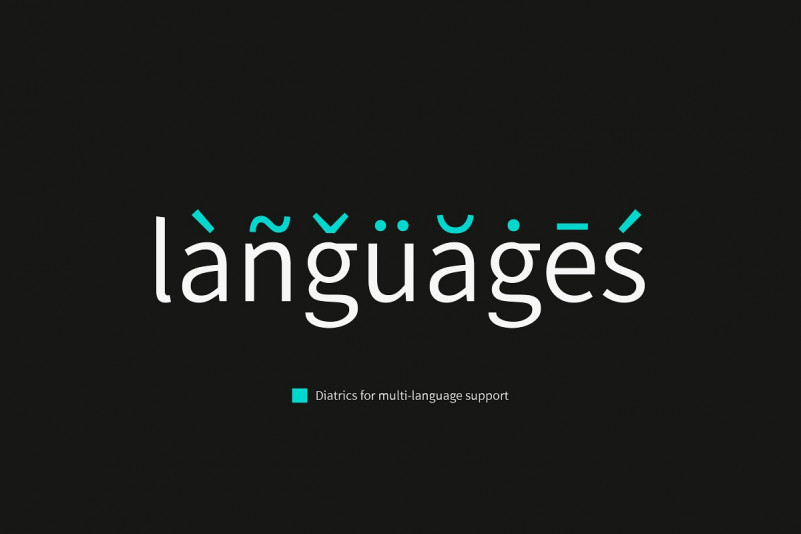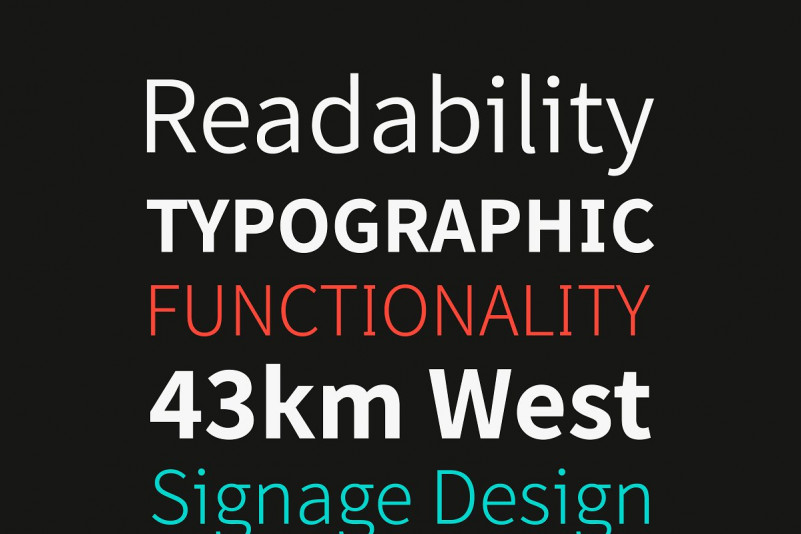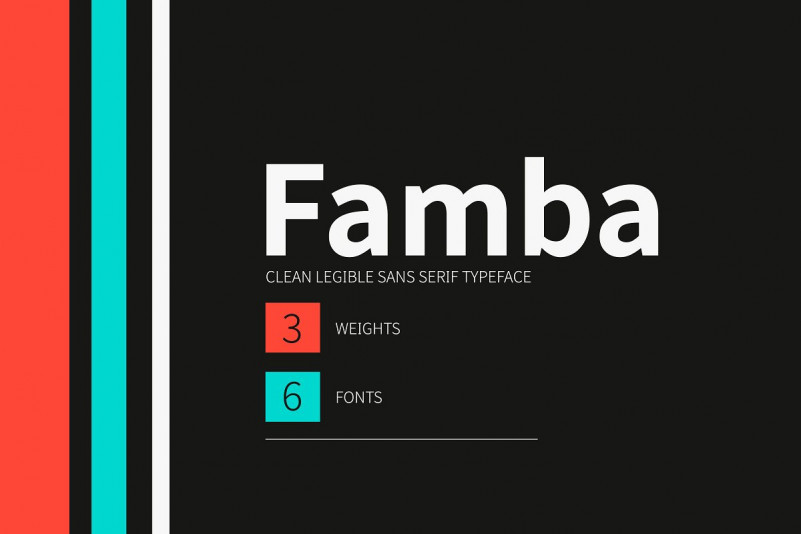
Famba Typeface Font
Famba typeface is a modern sans serif typeface designed for accessibility. The letterforms are designed for maximum legibility, readability and clarity taking into account the problematic & often confused letterforms by general people, children, dyslexic people, the visually impaired and ageing individuals. The font will work perfectly as a text typeface for smaller texts such as books, apps & websites as well as for large text such as signage, billboards and most importantly as a signage font.